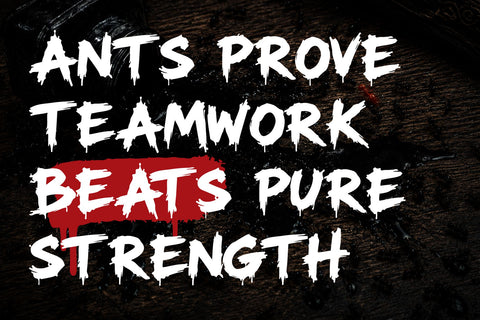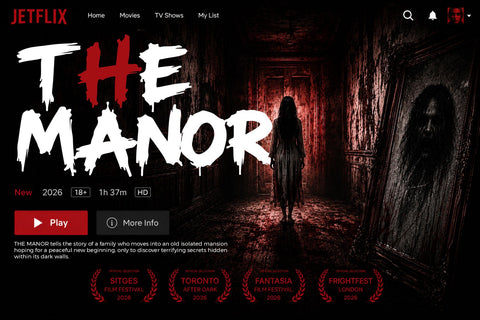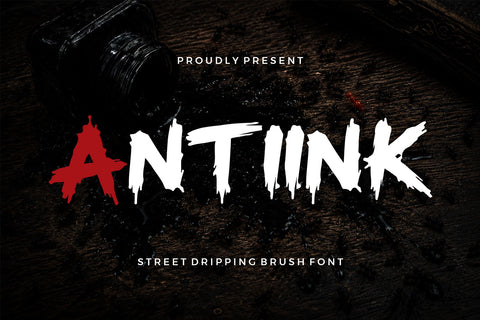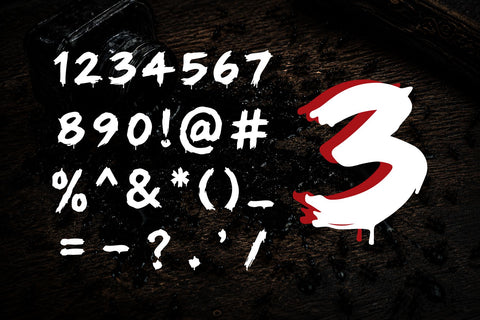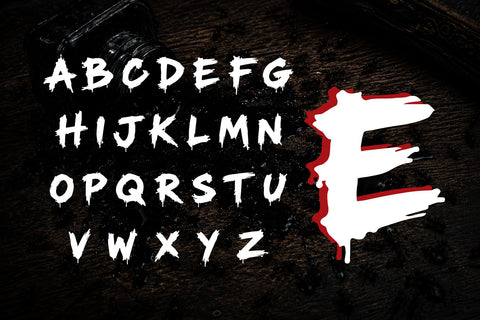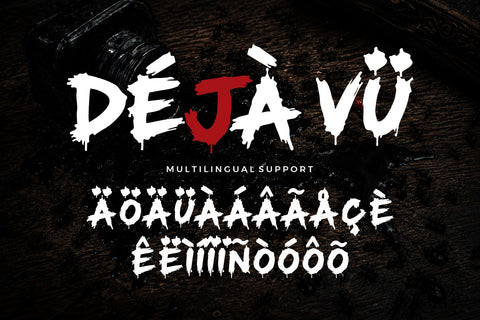
Antiink – Street Dripping Brush Font
Introducing Antiink, a bold street dripping brush font inspired by underground graffiti culture, raw ink strokes, urban handstyle lettering, and rebellious street art aesthetics. Designed with aggressive brush textures and expressive dripping details, Antiink delivers powerful typography with authentic street energy and strong visual personality.
Antiink combines handcrafted brush strokes with rough dripping effects to create typography that feels bold, dynamic, and full of attitude. The irregular textures and expressive shapes give every letter a natural urban feel inspired by graffiti walls, underground tagging culture, punk visuals, and modern streetwear design.
This font works perfectly for projects that need strong display typography with gritty urban character. Suitable for streetwear branding, music artwork, gaming visuals, YouTube thumbnails, album covers, posters, social media graphics, skate branding, merchandise, and edgy promotional designs.
The bold brush structure creates excellent readability while still maintaining authentic handcrafted aesthetics. Antiink instantly transforms ordinary text into expressive urban visuals filled with underground energy and rebellious atmosphere.
Features
- Uppercase Characters
- Lowercase Characters
- Numbers & Punctuation
- Dripping Brush Style
- Urban Handcrafted Texture
- Bold Street Aesthetic
- Rough Ink Character
- Expressive Brush Strokes
Inspired by graffiti culture, street art movements, underground music visuals, and modern urban branding, Antiink creates typography that feels raw, energetic, and visually impactful. The dripping details and rough brush texture help compositions feel more alive and expressive while maintaining strong readability for display purposes.
Antiink is highly suitable for:
streetwear branding, graffiti posters, hip hop visuals, album artwork, gaming graphics, esports branding, underground merchandise, tattoo visuals, social media content, skateboard graphics, urban packaging, music festival posters, edgy campaigns, and creative display layouts.
The font performs beautifully in oversized headlines and layered typography compositions. Whether combined with grunge textures, monochrome layouts, neon visuals, spray-paint effects, or dark urban aesthetics, Antiink maintains strong rebellious character and authentic street personality.
The multilingual support expands creative possibilities across different languages, while punctuation and numeric characters provide flexibility for complete typography systems and modern branding projects.
Antiink is perfect for creators looking for typography with aggressive brush energy, dripping urban details, and bold handcrafted attitude. Its expressive style makes every design feel louder, stronger, and visually unforgettable.